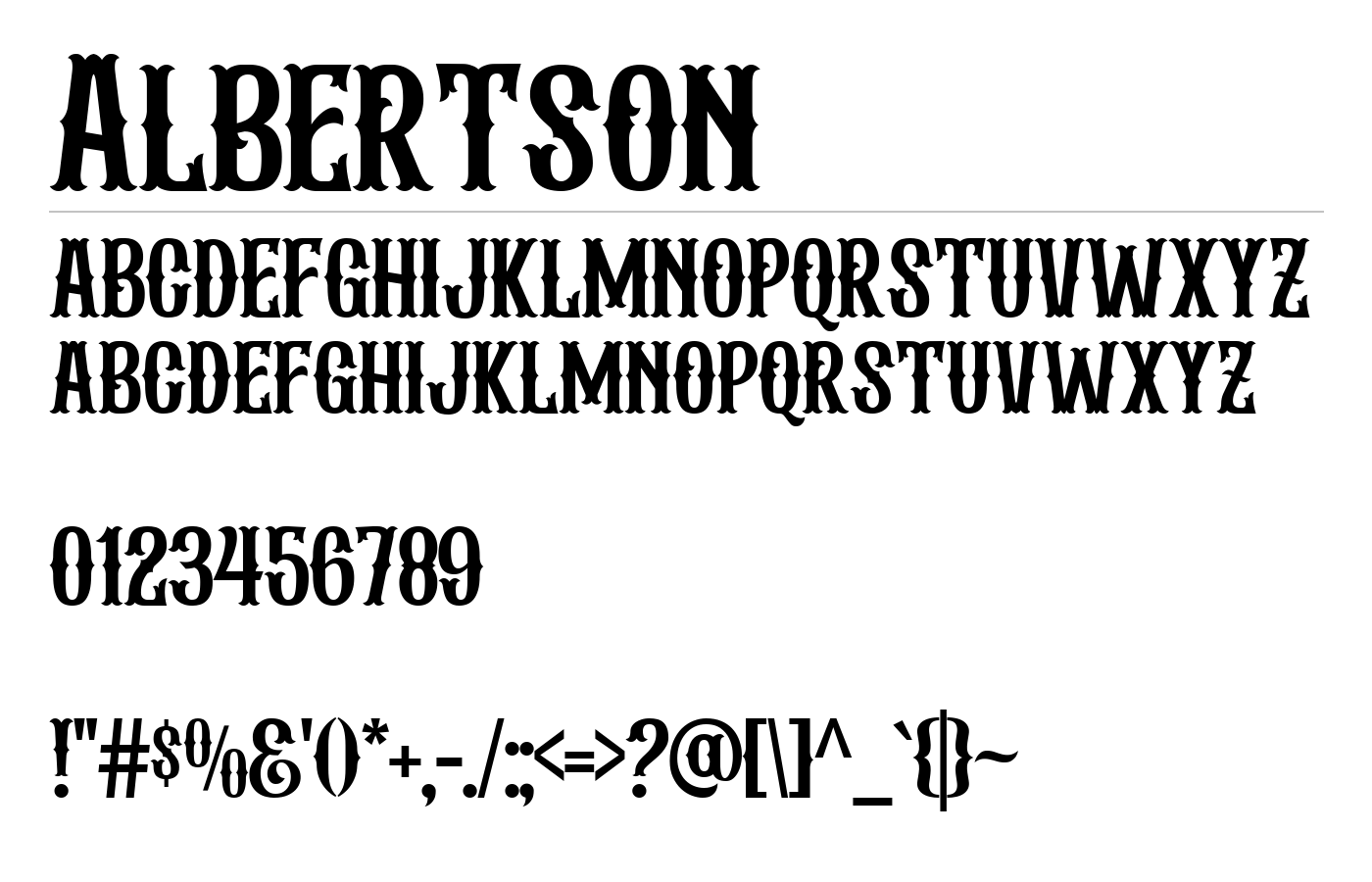
Albertson is a bold, condensed serif font with a vintage Western feel, featuring high contrast strokes and distinctive bracketed serifs that add character and charm. Its tall, narrow letterforms and unique details make it ideal for eye-catching headlines, logos, and branding that seek to evoke a nostalgic yet strong presence. This font works especially well in designs related to rustic themes, vintage posters, or any project aiming for a bold, classic statement.
Albertson Font
About Albertson Font
| Font family | Albertson Font |